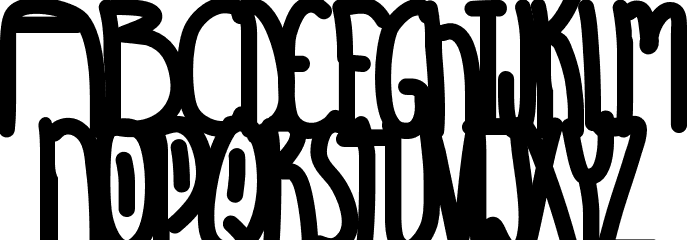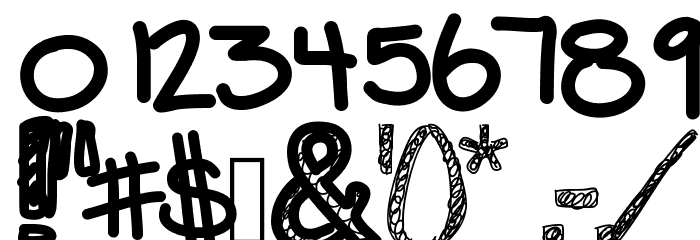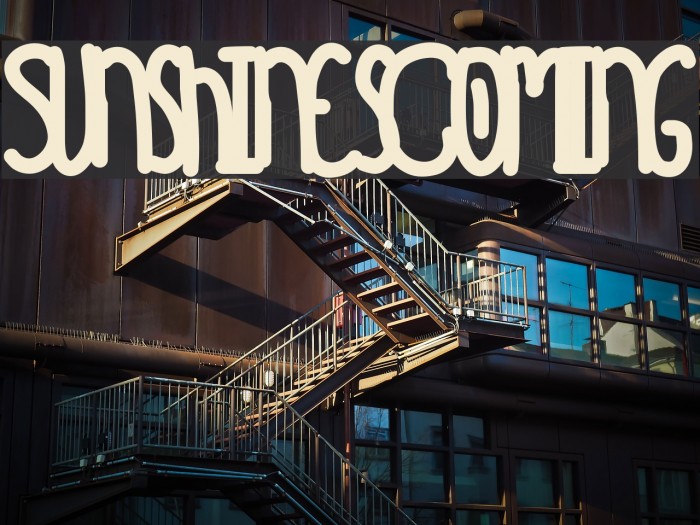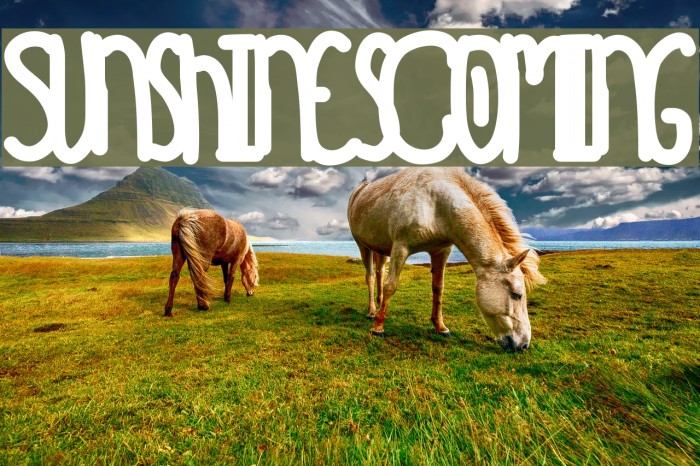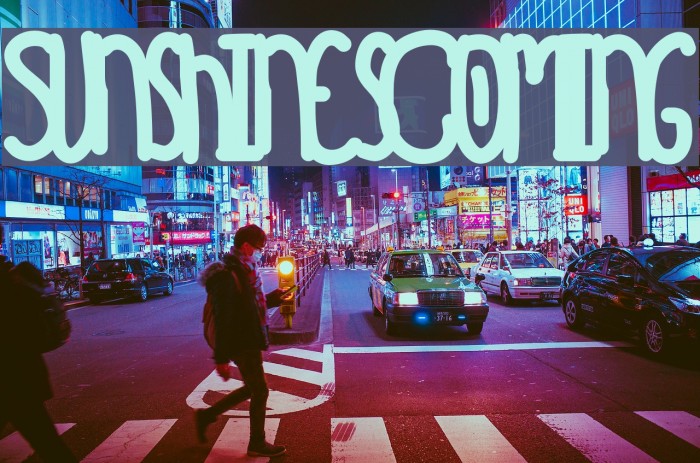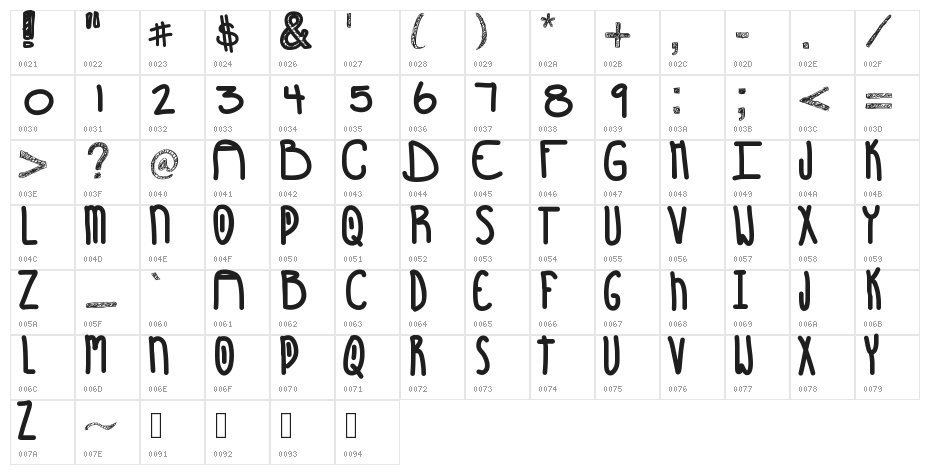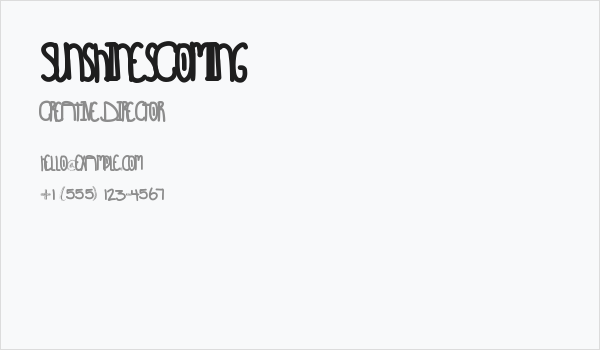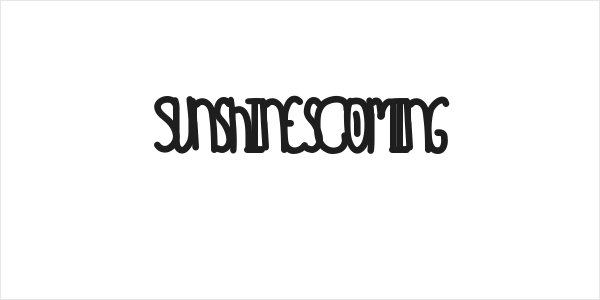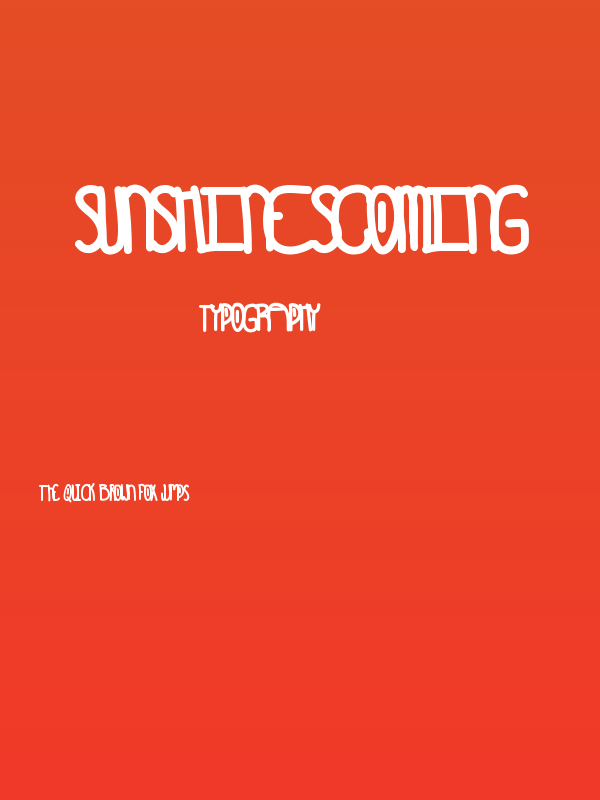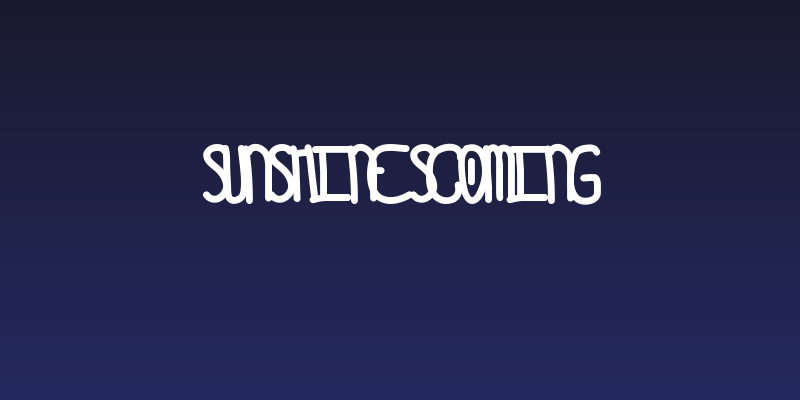
SunshinesComing Font
This font features a bold and playful design with a hand-drawn aesthetic. The characters are thick and rounded, giving them a friendly and approachable feel. The uppercase and lowercase letters maintain a consistent style, with exaggerated curves and a slightly irregular baseline that adds to the whimsical nature of the font. The numbers and special characters are equally bold, ensuring readability while maintaining the overall playful theme. This font is ideal for projects that require a fun and informal touch, such as children's books, playful branding, or creative posters.
A bold, playful, hand-drawn font with thick, rounded characters.
- Proposed Projects: Children's books, playful branding, creative posters, informal invitations.
- Overall Style: Playful, Whimsical